Sport Fonts: Bold Energy for Your Active Designs
Every season has its own vibe, and right now it feels like everyone’s in their sporty era. From padel courts to running tracks, tennis matches to badminton games, the world is buzzing with active energy and design is keeping up too. That’s where sport fonts come in.
Sport fonts are bold, dynamic, and full of movement. They instantly give your design that adrenaline rush like a logo on a racing jersey, or the number on a football shirt. If you want your project to feel powerful, competitive, and full of energy, sport fonts are your go to.
Why Sport Fonts Work So Well
What makes sport fonts so special? It’s their strong presence. Sport fonts usually have sharp edges, blocky shapes, or sleek italic cuts that mimic speed and power. Here’s why designers love them:
• Instant Impact: Sport fonts grab attention at first glance.
• Versatility: From logos to posters to social media, they fit right in.
• Energy & Movement: Many sport fonts have angled lines or condensed shapes that feel fast and dynamic.
• Team Spirit: They carry that sense of unity and competition — perfect for branding.
Where You Can Use Sport Fonts
Sport fonts aren’t just for actual sports brands. They work for a wide range of creative projects:
• Activewear & Lifestyle Brands
• Event Posters & Flyers (marathons, tournaments, gym promos)
• Social Media Campaigns with a strong, energetic vibe
• Merch Design: from jerseys to tote bags to caps
• Gaming & eSports: fast-paced energy also fits the digital arena
Our Recommended Sport Fonts
Looking for the right sporty vibe? Here are some of our favorite sport fonts from Burntilldead Studio:
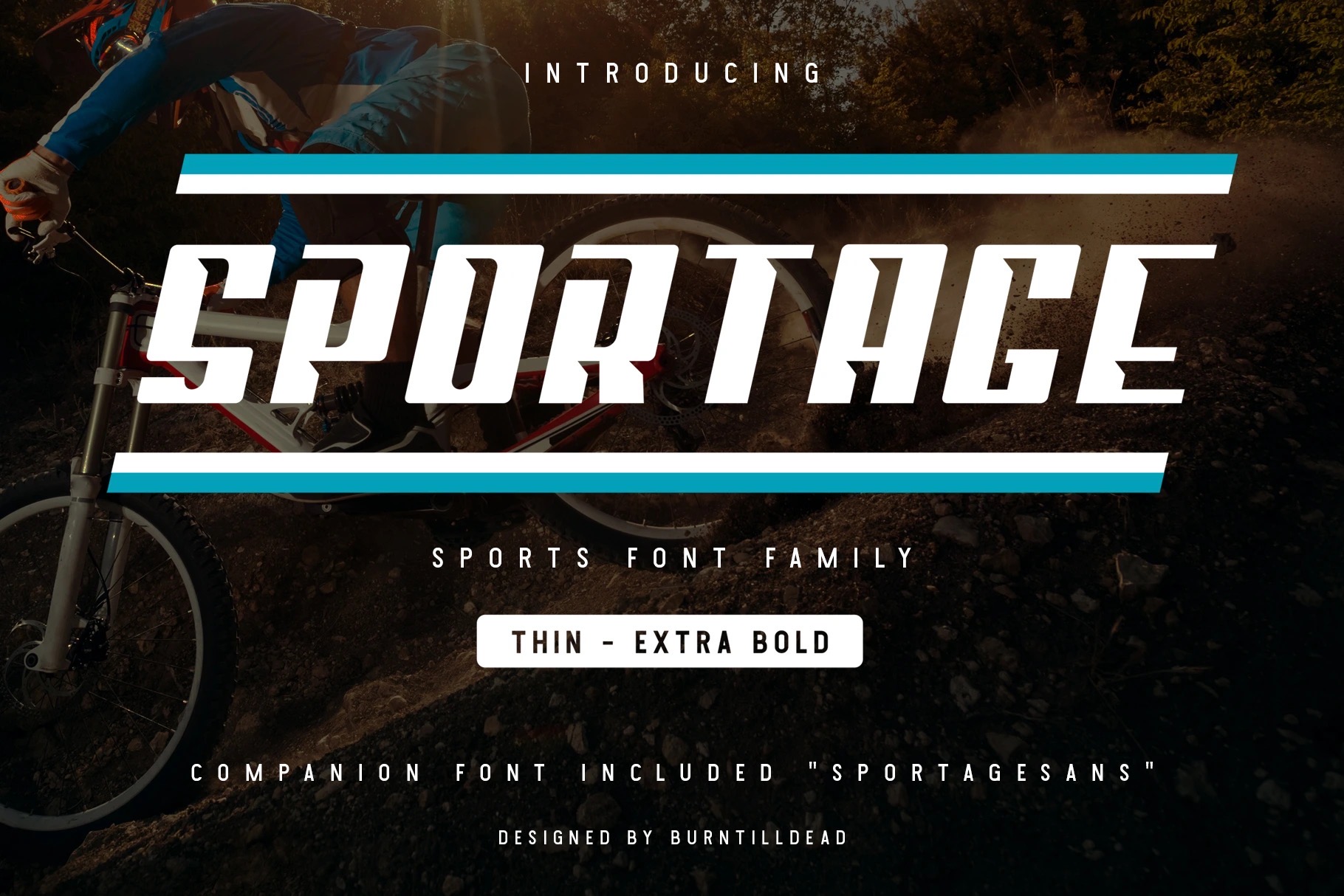
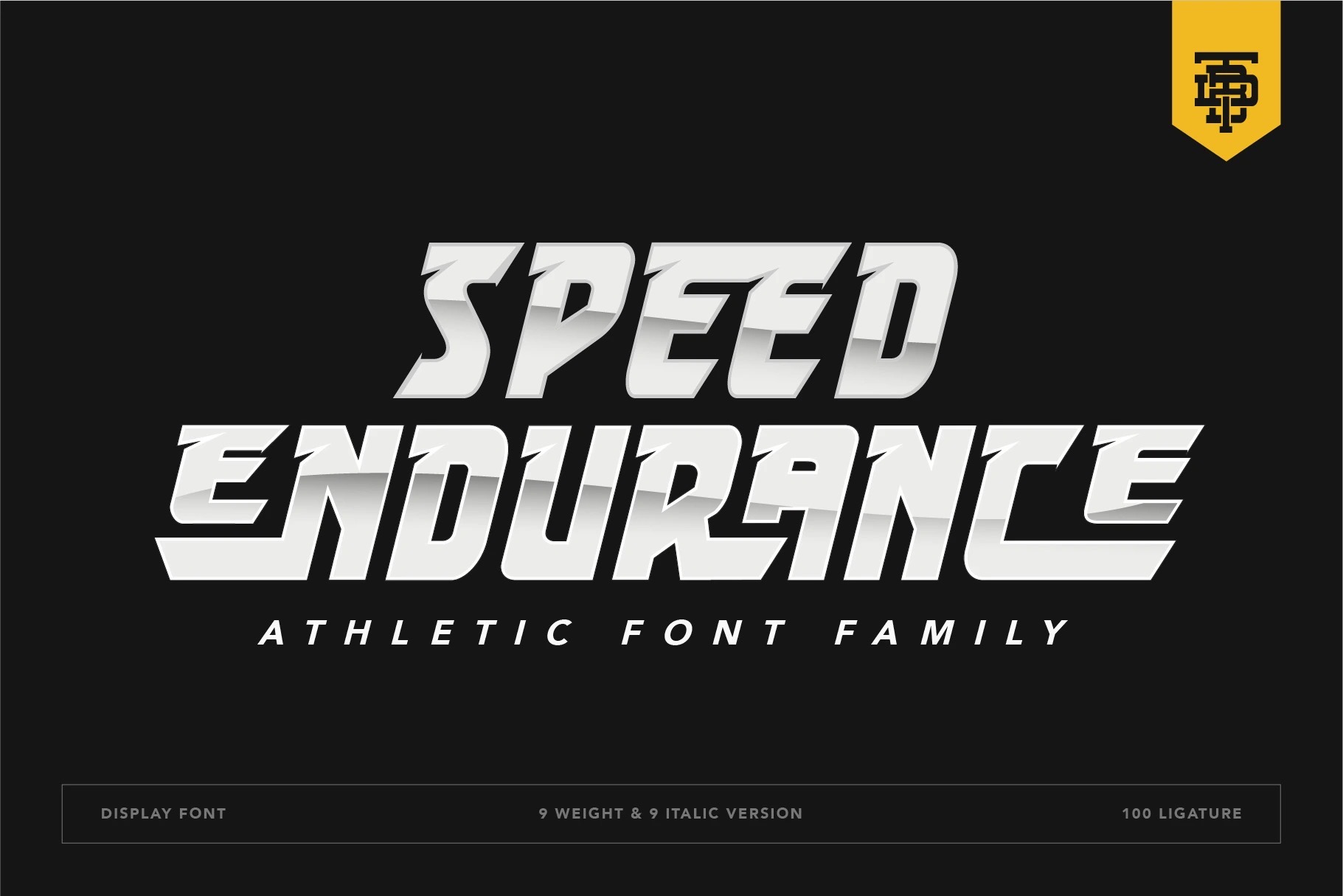Sportage
Sportage is a sports font family with multiple weight size from thin to extra bold. Italic version provided to bring another vibe of speed. Built for people who have enthusiasts with race, workouts & athletic. Rooted in the original shape of original competitive sports spirit.The Idea is to bring the dynamic shape and the weight into typhography; elevating athletic performance through progresive innovation of font, so whenever people see the font they think of hard works & sports.The goal is to make the font looks stand out and visible to many possible placement on sports outfit & ads. No mater how small the print area, you can always easily choose the weight of the font from thin to extra bold.We also add the companion font “Sportage Sans” on the following files.
Speed Endurance
Speed Endurance is athletic font family, consists of energetic & sports looks; sharp lines with a verified tilt angle that will emphasize a modern style.A perfect choice for athletic products, sports games cover, automotive, labels, advertising decals, etc.This font perfectly suitable for design project with energetic and sport theme concept such as logotype, product tag, marketing material and etc.
Energize
Energize is a sports font family with 3 styles (extrude, outline & regular), 3 weight (thin-Bold) & every weight have italic version included (Thin italic – Bold Italic). Built for people who have enthusiasts with race, workouts & athletic. Rooted in the original shape of original competitive sports spirit.The Idea is to bring the dynamic shape and the weight into typhography; elevating athletic performance through progresive innovation of font, so whenever people see the font they think of hard works & sports.The goal is to make the font looks stand out and visible to many possible placement on sports outfit & ads. No mater how small the print area, you can always easily choose the weight of the font from thin to extra bold.
Energan
Introducing Energan, a condensed sporty tech font. Energan is a display typeface inspired by speed, precision, and futuristic energy. In today’s world, technology moves as fast as a race car—and this font was designed to reflect that spirit. With sharp cuts and dynamic shapes, Energan brings out a sense of motion, power, and high performance.
This condensed sans serif was created to give your design a strong, fast, and professional vibe. Whether you’re working on a motorsport logo, automotive headline, racing flyer, gaming event poster, tech branding, or YouTube thumbnail, Energan delivers the adrenaline rush your visuals need.
Bring high-speed energy to your next creative project with Energan—the ultimate choice for sporty and racing-inspired designs.
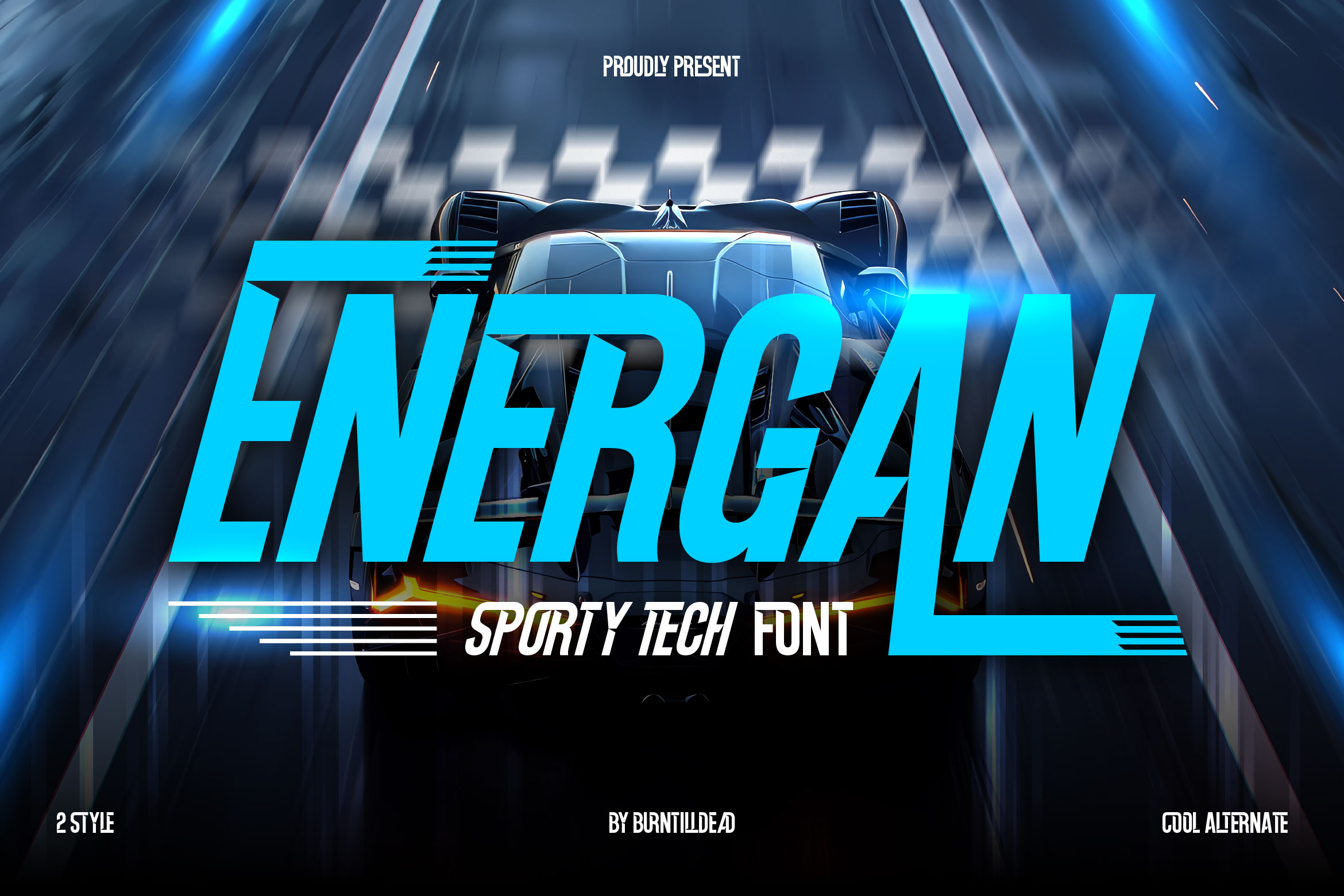
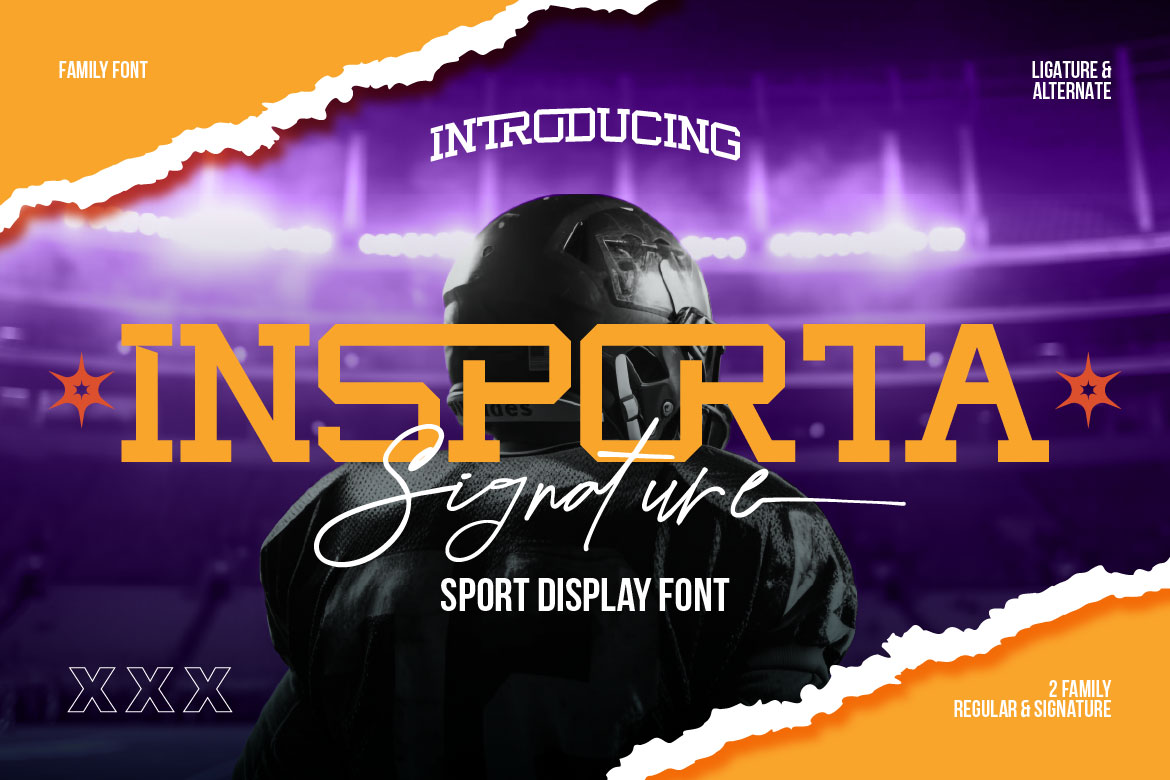Insporta Signature
Insporta Signature is a bold and energetic font duo designed to bring the spirit of competition into every design. This sporty typeface combines a strong all-caps serif font that inspired by college varsity aesthetic with a stylish signature script. Perfect for sports branding, athletic posters, team logos, or game day merchandise, Insporta Signature combines modern varsity typeface vibes with a personal, handwritten touch. Whether you’re designing for a football match, a college event, or a fitness brand, this sports team font has got you covered. With its classic varsity vibe and modern handwritten twist, Insporta Signature delivers a “game day ready” look that stands out.
Whether it’s padel, tennis, running, or just catching the sporty vibes of the season, sport fonts bring bold energy into your designs. They’re perfect for anyone who wants to capture the spirit of competition, teamwork, and strength.